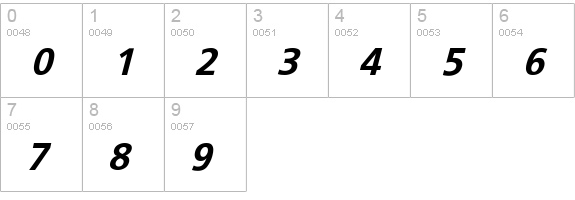
BudboyerObl-Bol Font Details
Introducing BudboyerObl-Bol font, a versatile and modern typeface designed to make your text stand out with its unique oblique style and bold weight. This font exudes a sense of strength and sophistication, making it perfect for a wide range of design projects. What sets BudboyerObl-Bol font apart is not only its striking appearance but also its accessibility - it is completely free to download at FontsMarket.com. Whether you're working on a branding project, editorial layout, or any other creative endeavor, this font is sure to elevate your designs and make a lasting impression. Embrace the creativity and flexibility that BudboyerObl-Bol font offers, and let your words speak volumes with this dynamic typeface. Download it today and unleash the full potential of your design projects.